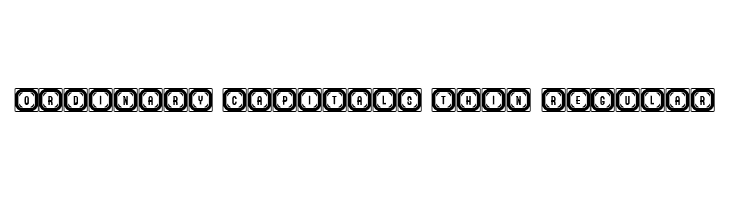
A bold, geometric font with characters enclosed in square frames.
A bold, decorative font with uppercase letters enclosed in square borders, offering a vintage and structured look.
A modern, geometric font with characters enclosed in square frames.